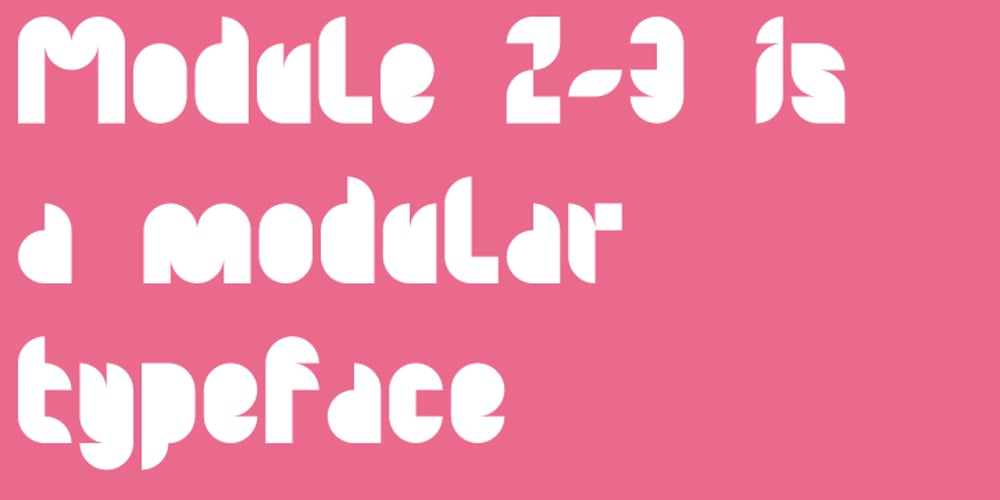
Module Font Family was designed by published by Sébastien Truchet. Module contains 1 styles and family package options. Sébastien Truchet designed a modular typographic system during his last year in the School of Fine Arts of Besançon. The system is made of a unique grid and 6 modules which are the components to build several typefaces. The most radical is the “2-2”. The last one is the “10-12”.This is the “2-3”. The goal is to use a grid made of 2 modules in width and three in height. This version is the most pertinent minimalist typeface which keeps plasticity and legibility. There is a character set of capitals tied to the origin of the project